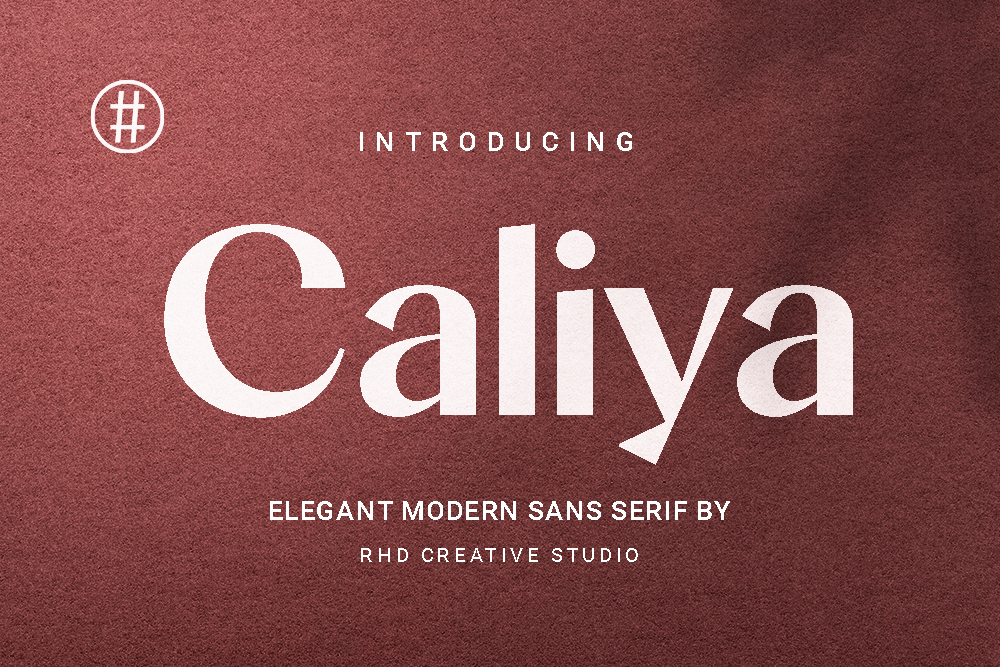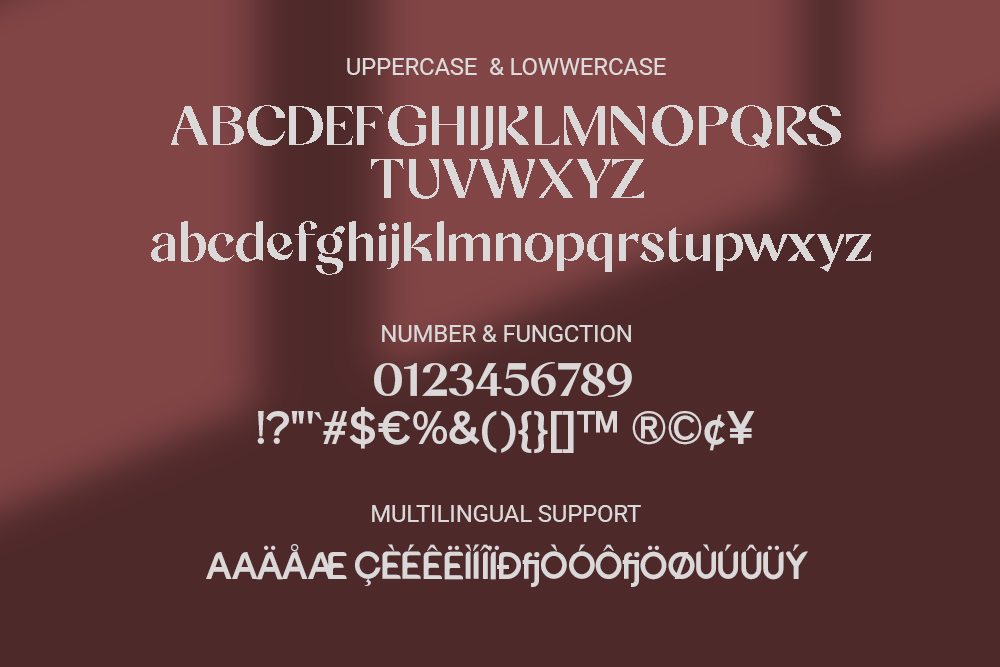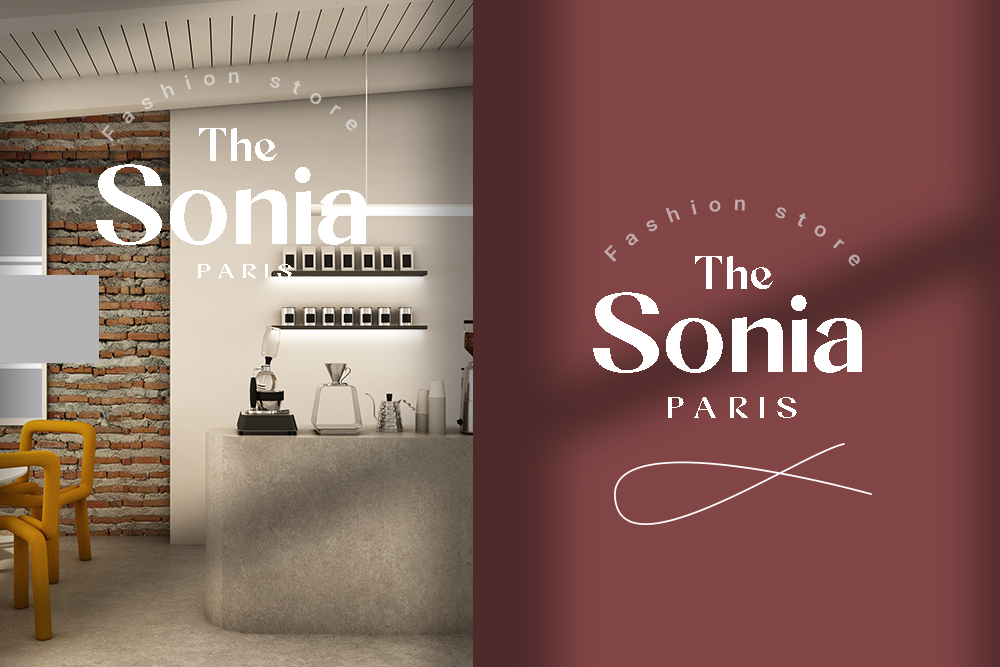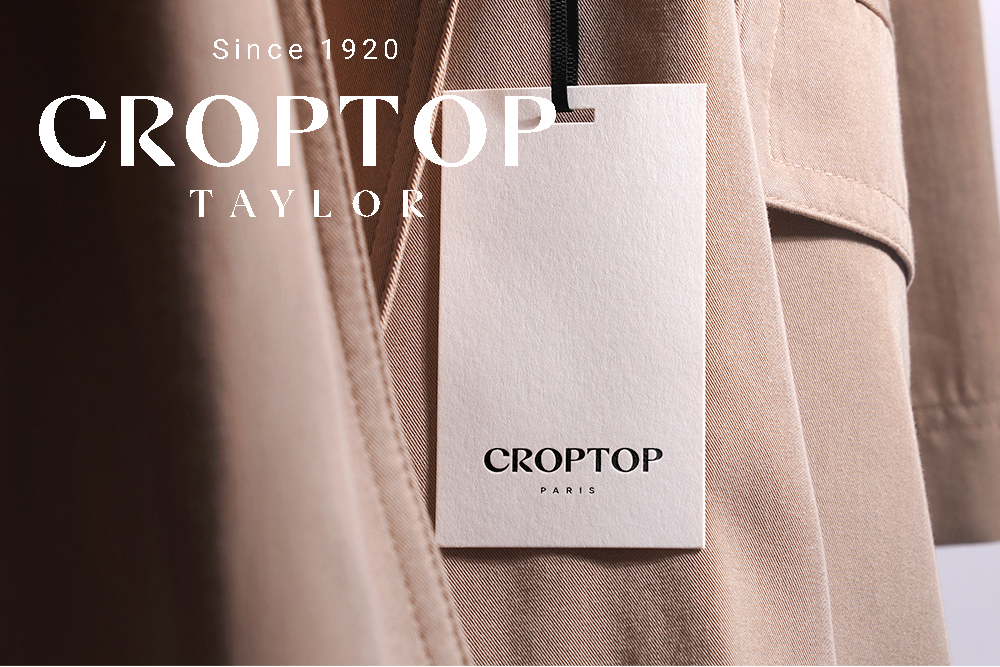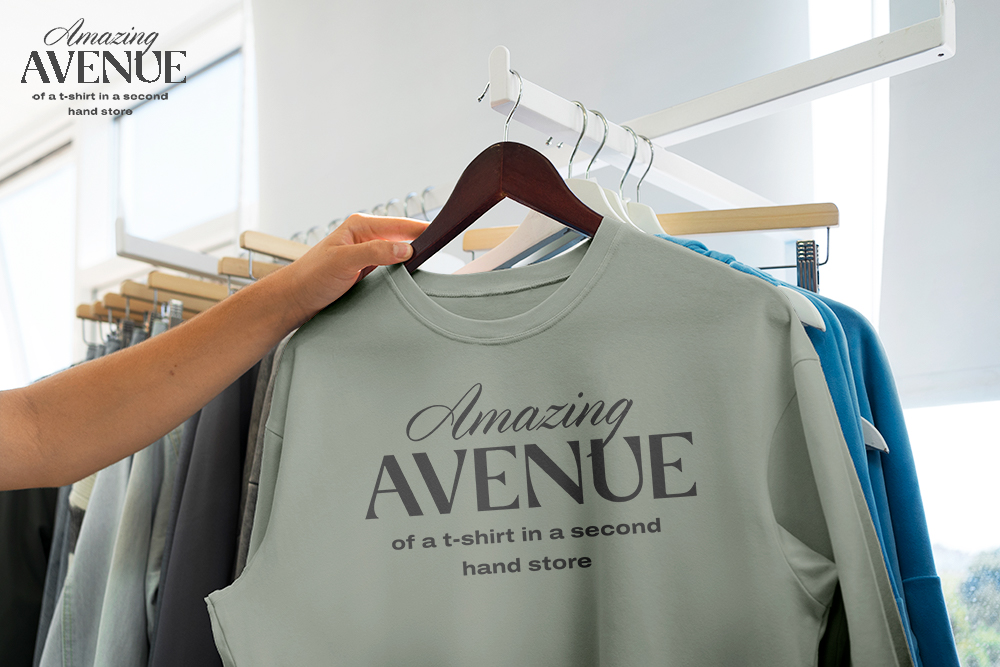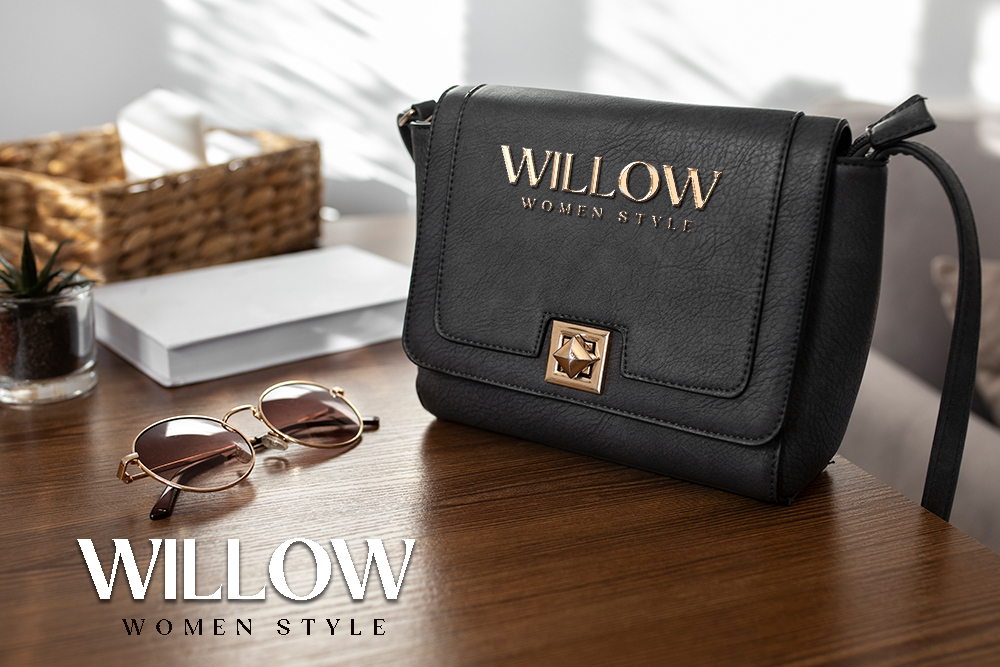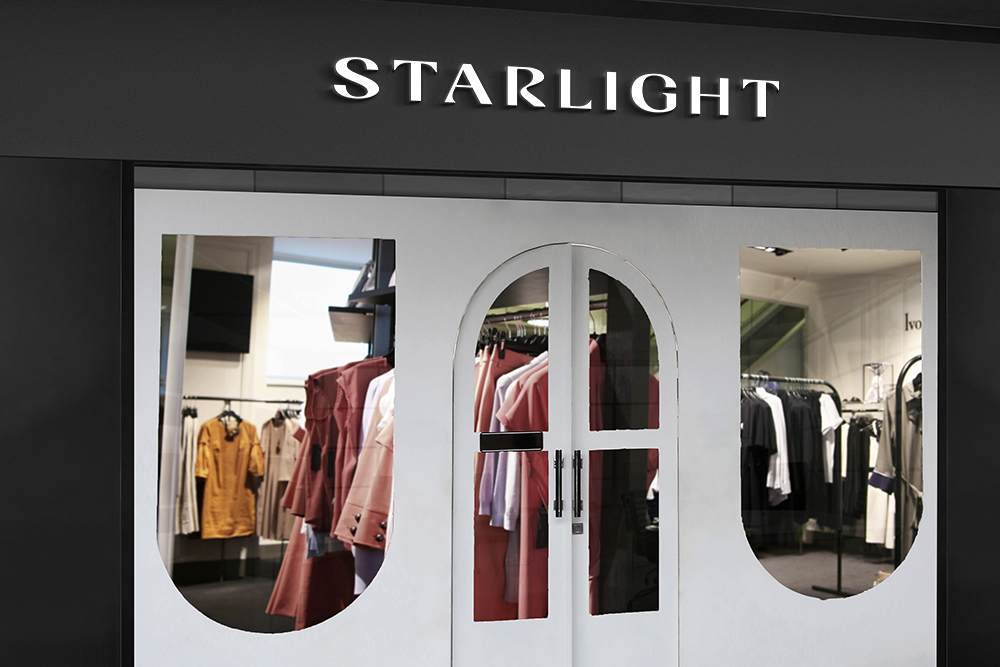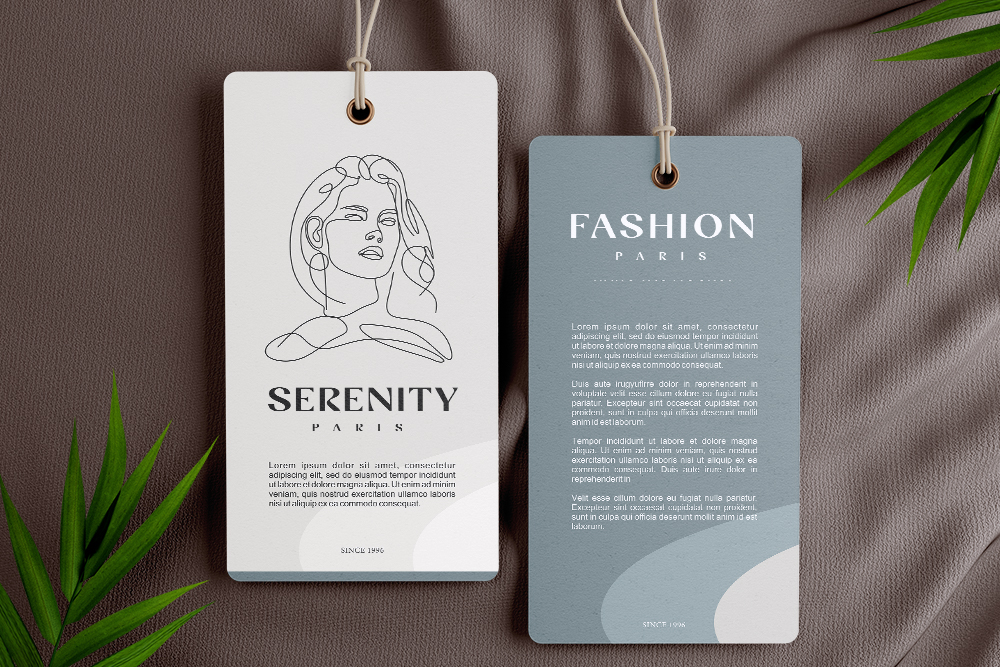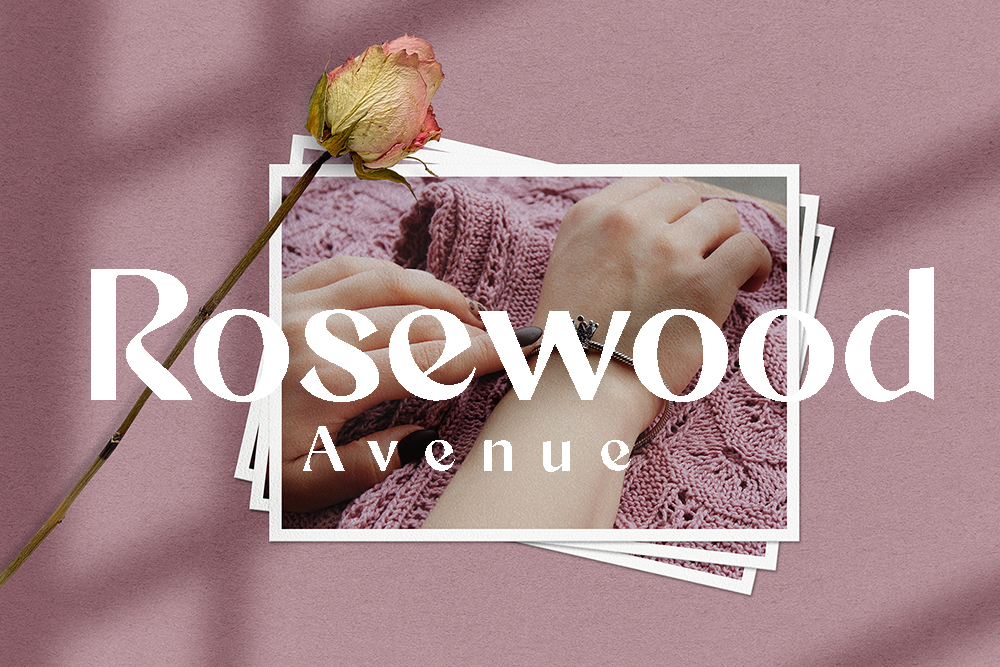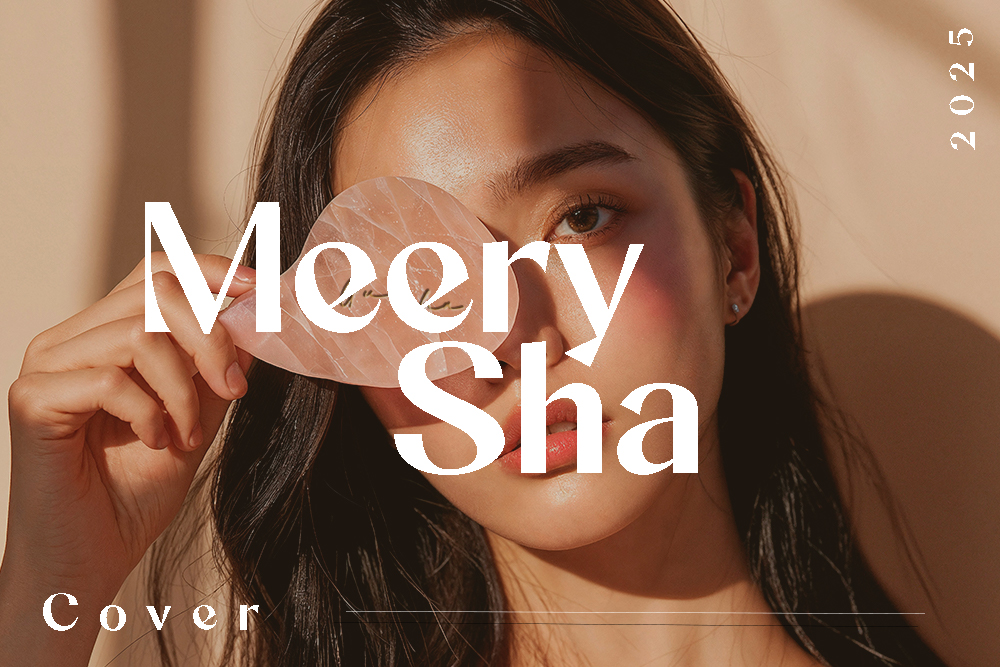
Caliya Elegant Modern Sans serif Font
Caliya Elegant Modern Sans serif Font with Handmade character. Caliya Elegant Modern Sans serif Font, Modern font to make your design project stand out! Caliya is a perfectly choice for any creative endeavor, creating, modern, chic, lifestyle design such as logotype, title, cover, branding, invitations, wedding designs, display and magazine, social media posts, advertisements, printed quotes, product packaging, corporate brand, product designs, labels, photography, watermarks, special events and any other project with modern touch.
Hello everyone, I would like to introduce Caliya Elegant Modern Sans serif Font.
Caliya Elegant Modern Sans serif Font with Handmade character. Caliya Elegant Modern Sans serif Font, Modern font to make your design project stand out! Caliya is a perfectly choice for any creative endeavor, creating, modern, chic, lifestyle design such as logotype, title, cover, branding, invitations, wedding designs, display and magazine, social media posts, advertisements, printed quotes, product packaging, corporate brand, product designs, labels, photography, watermarks, special events and any other project with modern touch.
– Uppercase and Lowercase letters
– Numbering and Punctuations
– Multilingual Support